font-width CSS property
The font-width property is the modern replacement for font-stretch, which is a legacy alias. While font-width is the specification's preferred name, font-stretch currently has broader browser support. Check the fallback example and browser compatibility table for details.
The font-width CSS property selects a normal, condensed, or expanded face from a font.
This property may be specified as a single keyword or <percentage> value.
Values
normal-
Specifies a normally condensed font face.
semi-condensed,extra-condensed,ultra-condensed-
Specifies a more condensed font face than normal, with
ultra-condensedbeing the most condensed. semi-expanded,extra-expanded,ultra-expanded-
Specifies a more expanded font face than normal, with
ultra-expandedbeing the most expanded. <percentage>-
A
<percentage>value between 50% and 200% (inclusive). Negative values are not allowed for this property.
Keyword to numeric mapping
The table below shows the mapping between the keyword values and numeric percentages:
Description
Some font families offer additional faces in which the characters are narrower than the normal face (condensed faces) or wider than the normal face (expanded faces).
You can use font-width to select a condensed or expanded face from such fonts. If the font you are using does not offer condensed or expanded faces, this property has no effect.
Font face selection
The face selected for a given value of font-width depends on the faces supported by the font in question. If the font does not provide a face that exactly matches the given value, then values less than 100% map to a condensed face, and values greater than or equal to 100% map to an expanded face.
The table below demonstrates the effect of setting different percentage values of font-width on two different fonts:
The following screenshot shows how the above table is rendered, in case your browser doesn't support the font-width property:
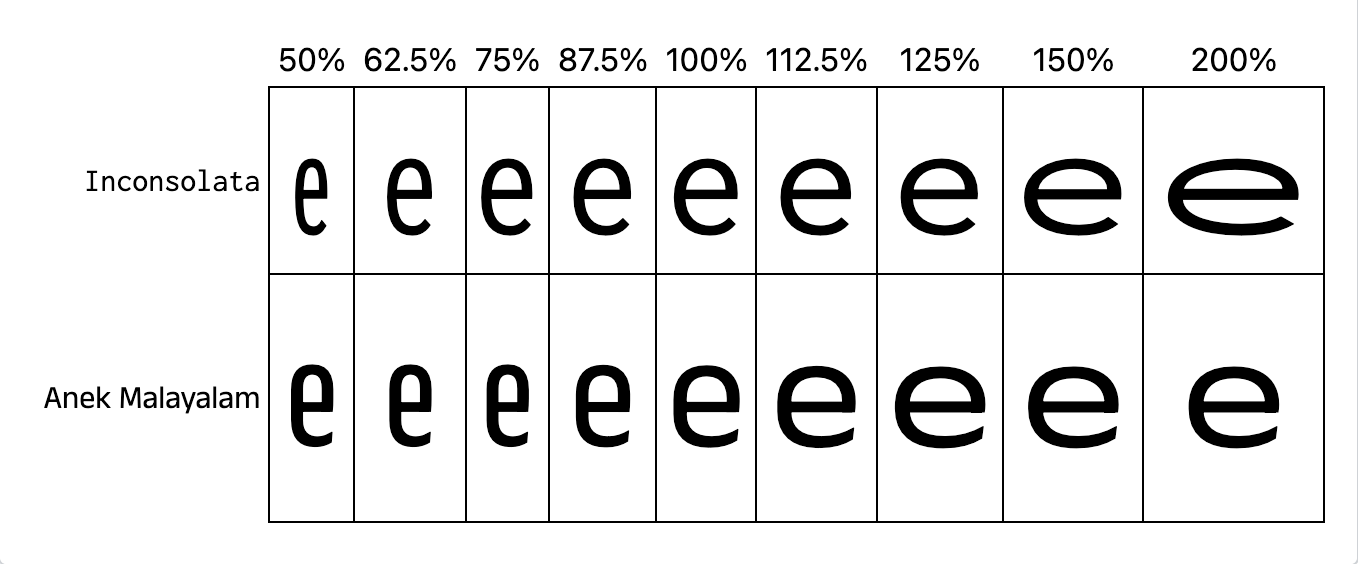
- Inconsolata is a variable font that offers a continuous range of widths from 50% to 200%.
- Anek Malayalam is a variable google font that supports widths from 75% to 125%. Values below and above this range select the closest matching font.